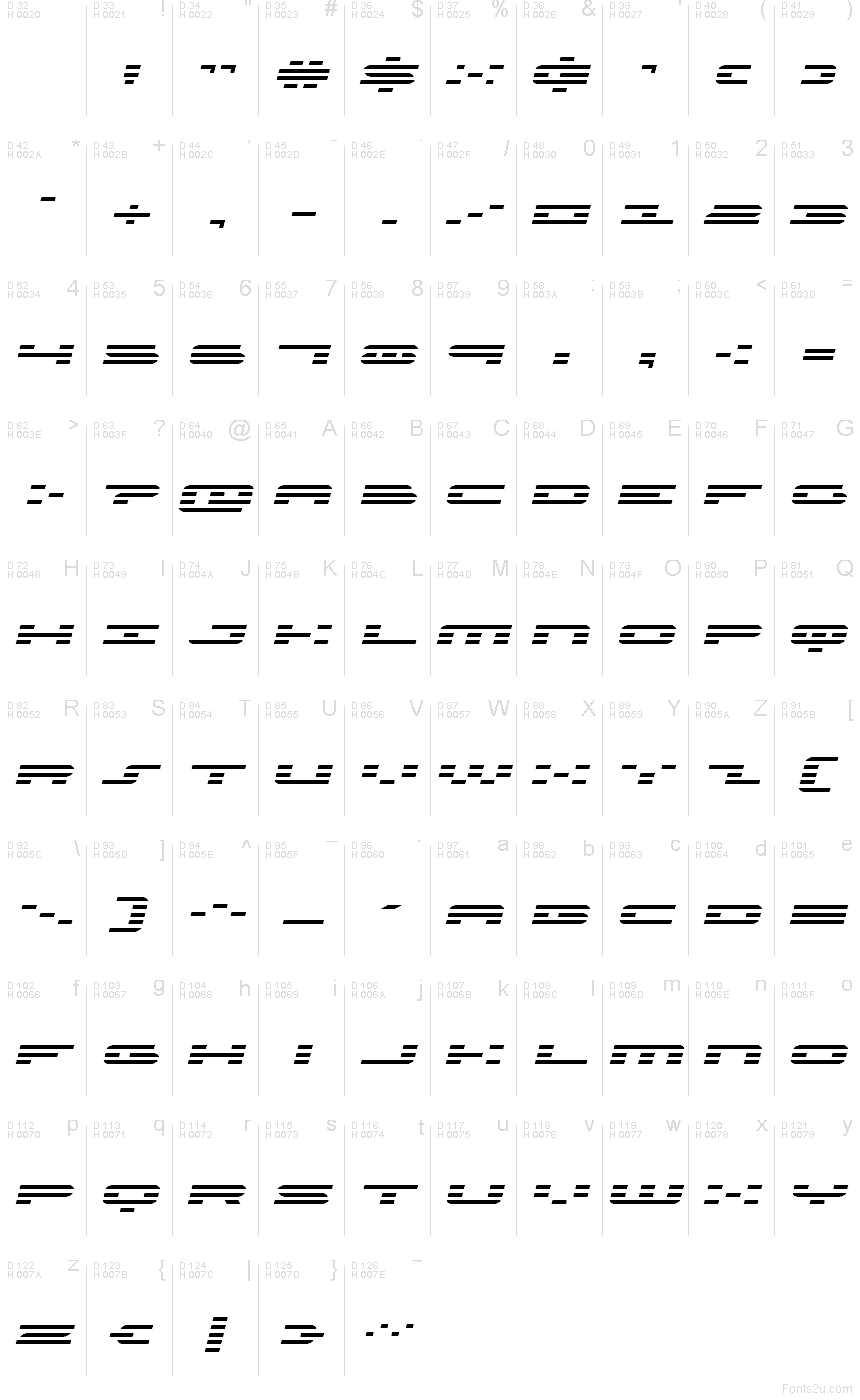
Nova Terra Wide Italic
Nova Terra Wide Italic font by Iconian Fonts is a free futuristic display typeface that looks like it’s been cut from light-speed trails and chrome panels. The extra-wide stance, aggressive forward slant, and sliced horizontal bars create a sense of motion even when the text is standing still, making every word feel like part of a high-tech interface or racing HUD. Its tight rhythm and bold, blocky shapes stay legible while still pushing a strong sci-fi attitude.
Using Nova Terra Wide Italic, titles instantly feel ready for launch—this free font shines on game logos, race event branding, e‑sports graphics, sci-fi movie covers, tech YouTube thumbnails, and bold poster headlines. It works beautifully when set large and tracked slightly wider, then paired with a clean geometric sans like the rest of the Nova Terra family for supporting text.